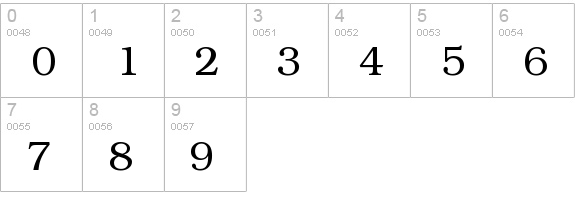
KacstArt Font Details
KacstArt font is a stunning display typeface that exudes elegance and sophistication. With its intricate details and graceful curves, this font is perfect for adding a touch of luxury to any design project. The versatility of KacstArt font makes it suitable for a wide range of applications, from branding and packaging to invitations and editorial design. What makes KacstArt font even more appealing is that it is completely free to download at FontsMarket.com. This means you can elevate your designs without breaking the bank. Embrace the beauty and charm of KacstArt font in your next project and watch it come to life with style and grace.